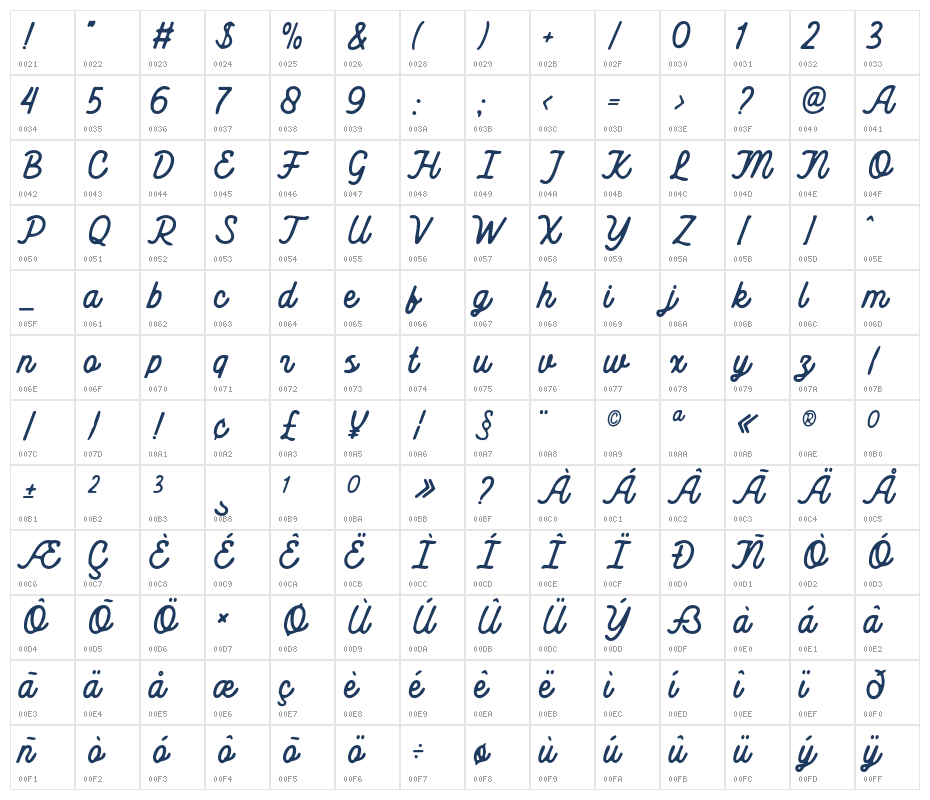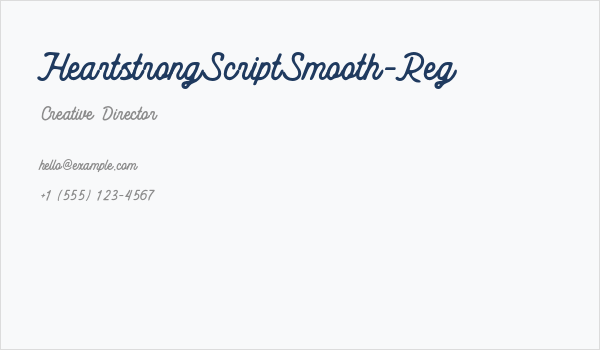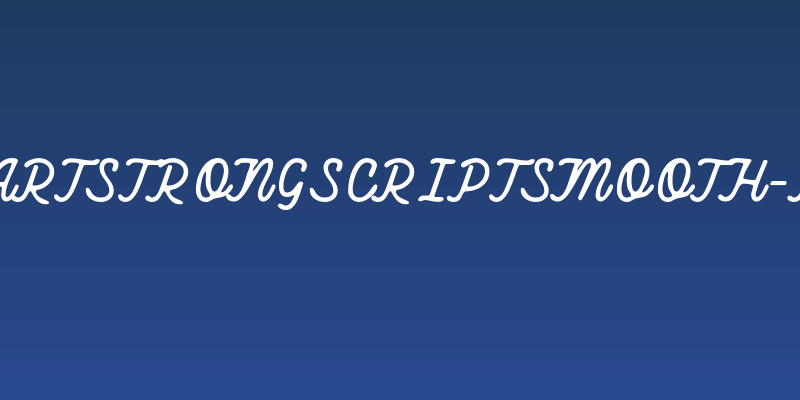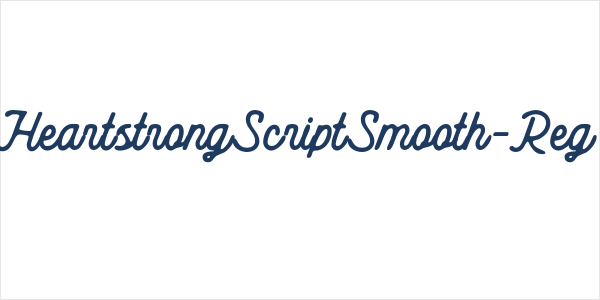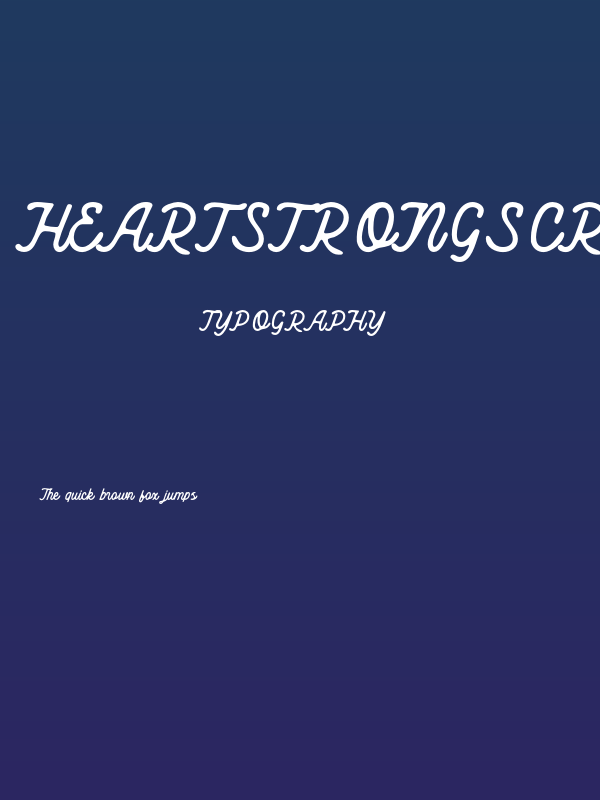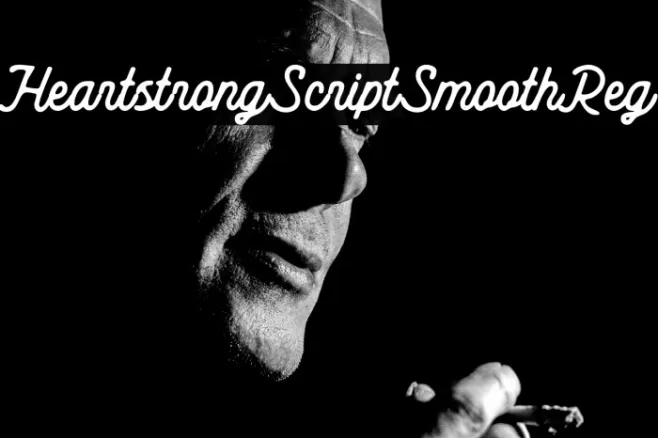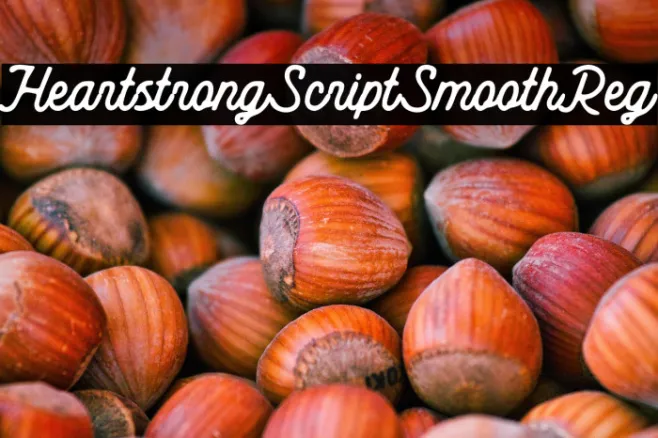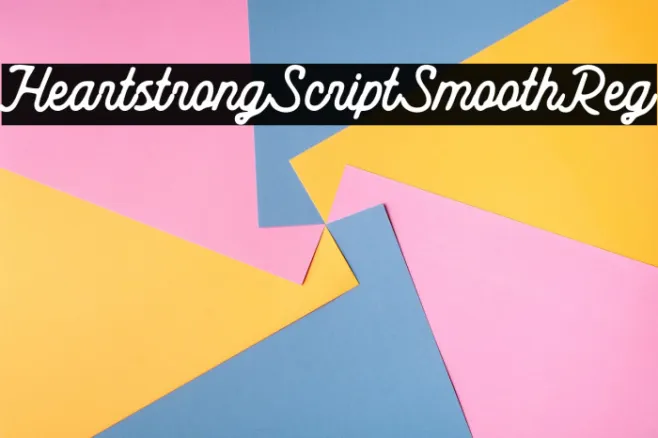
HeartstrongScriptSmooth-Reg Font
HeartstrongScriptSmooth-Reg Description
A casual, script-style font with a handwritten appearance, featuring smooth, flowing curves and a slightly playful character.
| Overall Style | Casual, Handwritten, Friendly |
| Use Case | Invitations, Greeting Cards, Branding, Logos |